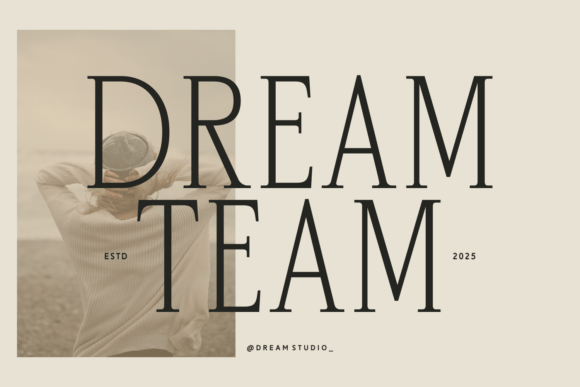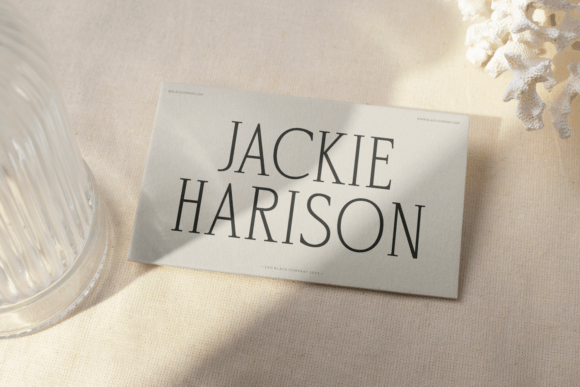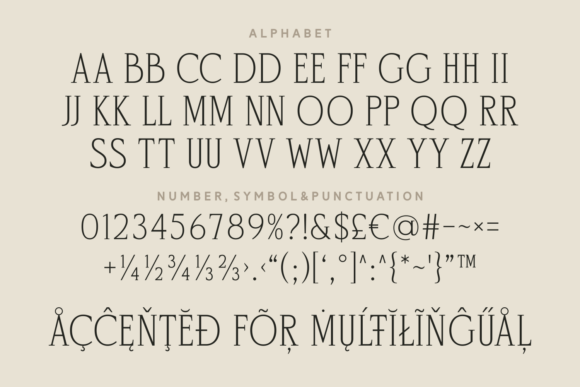
Introduction to Rasons Font
As designers, we’ve all been there – staring at a blank page, trying to find the perfect font to bring our creative project to life. It’s that moment of frustration when you’re searching for a font that exudes elegance and sophistication, only to end up with something that feels generic and uninspired.
But what if I told you there’s a font that can elevate your design to the next level? Enter Rasons Font, a delicate serif font that features beautiful ligatures and stylish swashes. With its high-quality design and transparent background, Rasons Font is the perfect addition to any creative project, whether you’re designing luxury branding, high-end packaging, or artistic editorial layouts.
Key Features of Rasons Font
- High-quality design resource suitable for creative projects, offering a unique and stylish look.
- Designed to be scalable, ensuring crisp and clear rendering at various resolutions and sizes, including 72 dpi and 300 dpi.
- Supports a wide range of languages, making it a versatile design resource for global creative projects.
- Unique characteristics include its modern and elegant design, perfect for branding, typography, and other creative applications.
Honest Review: Rasons Font
As a designer, I’m always on the lookout for high-quality design resources that can elevate my creative projects. Recently, I had the chance to try out the Rasons Font, and I’m excited to share my honest review with you.
What works well: ✨ The Rasons Font has a clean and modern design that’s perfect for a variety of creative projects. I particularly appreciate the transparent background, which makes it easy to combine with other design elements. The font is also highly versatile and can be used for both digital and print applications.
Here are some of the key features that make the Rasons Font a valuable design resource:
- High-quality design with a modern aesthetic
- Transparent background for easy combination with other elements
- Works well for digital and print applications
Limitations: ⚠️ While the Rasons Font is a great design resource, it may not be suitable for all types of projects. For example, it may not be the best choice for projects that require a more traditional or formal font.
Overall, I’m impressed with the Rasons Font and would definitely recommend it to other designers. Its high-quality design and versatility make it a valuable addition to any design toolkit.
Common Use Cases for Rasons Font
Rasons Font is a versatile design resource that can be used in a variety of creative projects, including logos, business cards, brochures, and websites. With its transparent background and high-quality design, Rasons Font is perfect for designers who want to add a touch of professionalism to their projects.